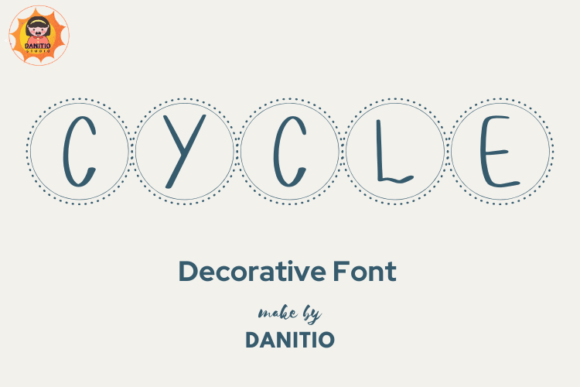
Introduction to Cycle Font
The Cycle is a decorative font with characteristics of a circle surrounding the letter.
Whether you use it for craft digital designs, presentations or greeting cards, this font has the potential to become your favourite font for any occasion .
Cycle Font offers exceptional quality and versatility, making it a valuable addition to your design toolkit. Whether you’re creating for personal projects or commercial use, Cycle Font delivers professional results.